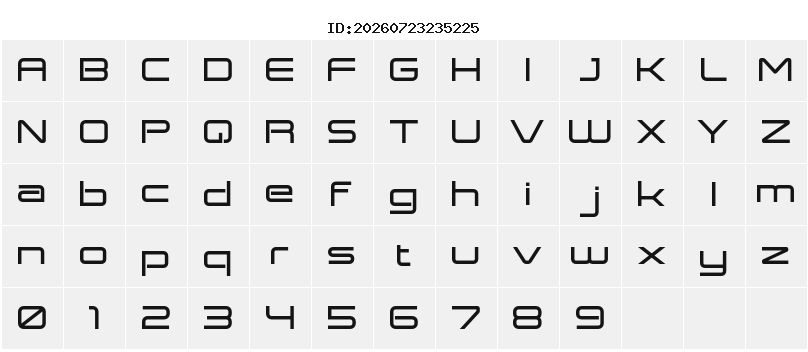
Expansiva Preview
• Font Name: Expansiva
• Full Font Name: Expansiva-Bold
• PostScript Name: Expansiva-Bold
• Designer: Néstor Jairo Delgado
• Manufacturer: Néstor Delgado
About Expansiva.otf
Expansiva.otf is a modern, elegant sans-serif font designed for ultimate readability and visual harmony. Perfect for branding, headlines, web design, and print materials.